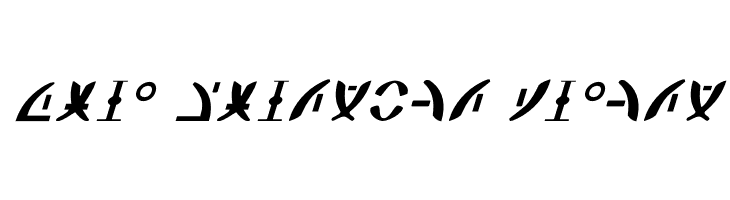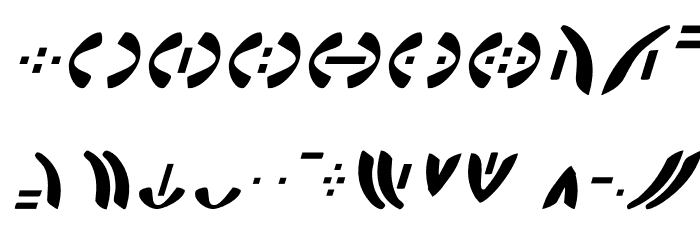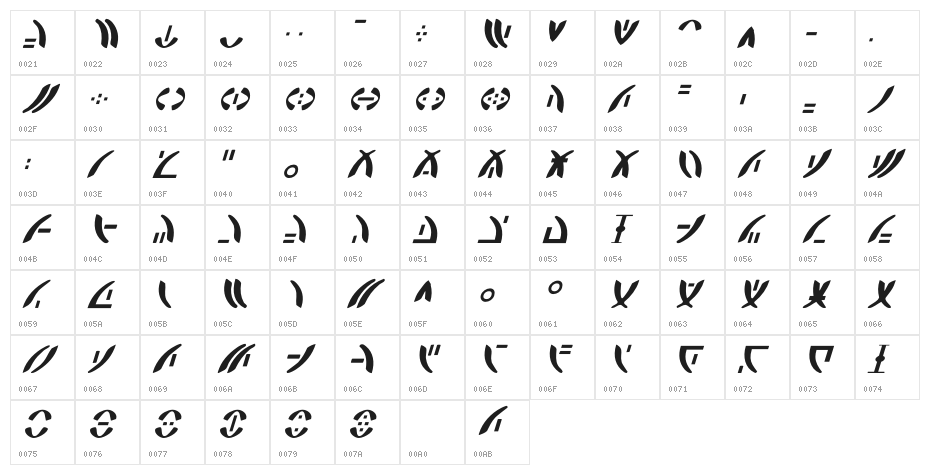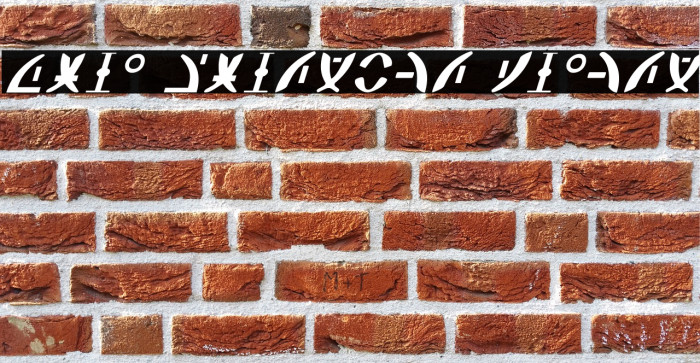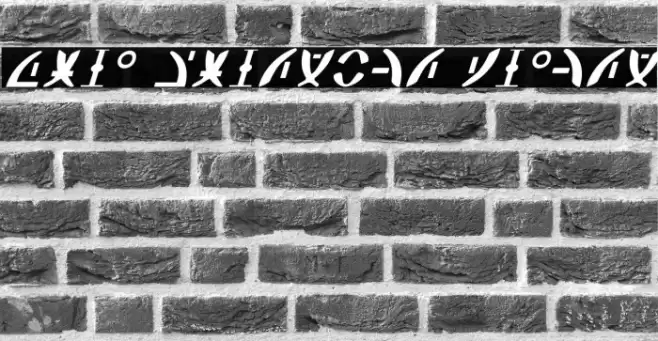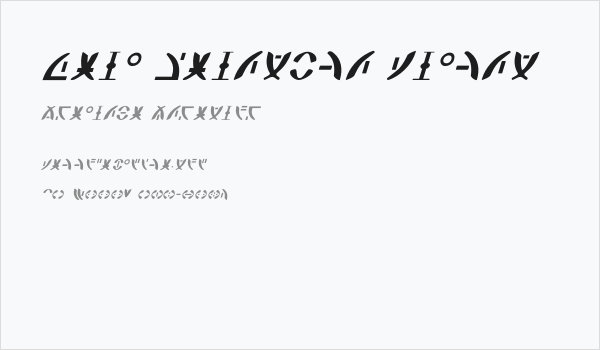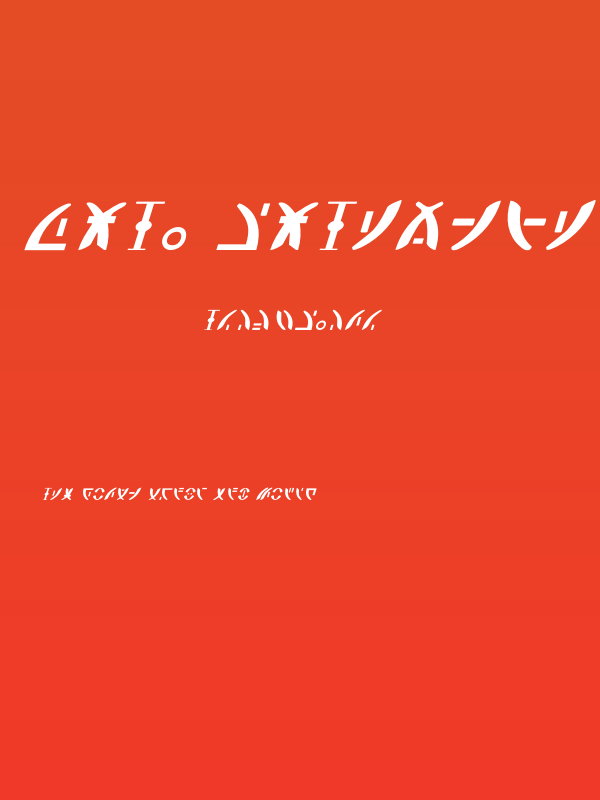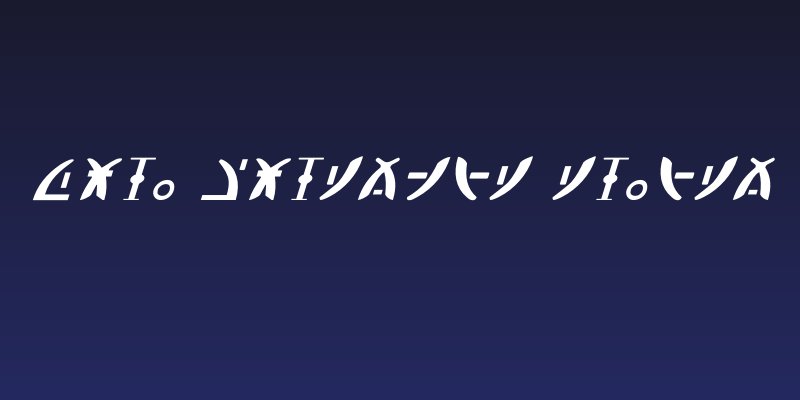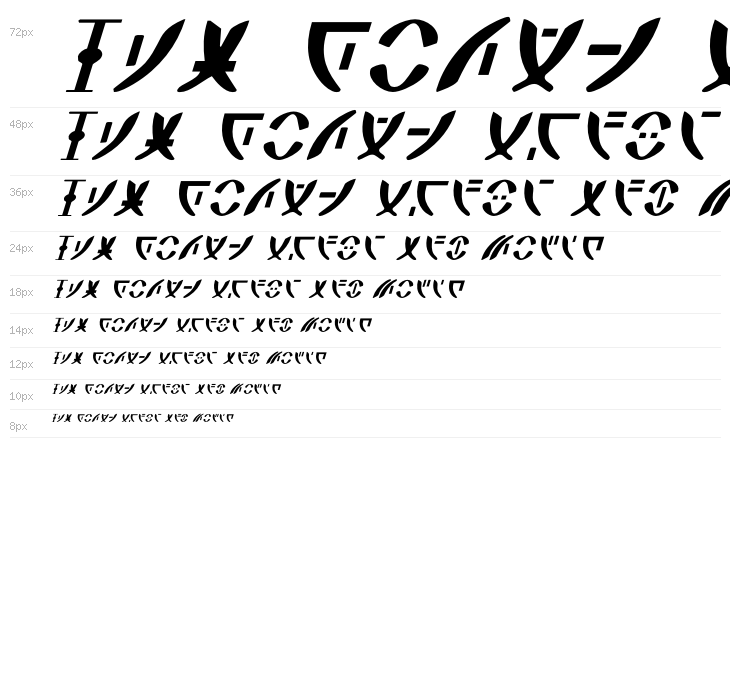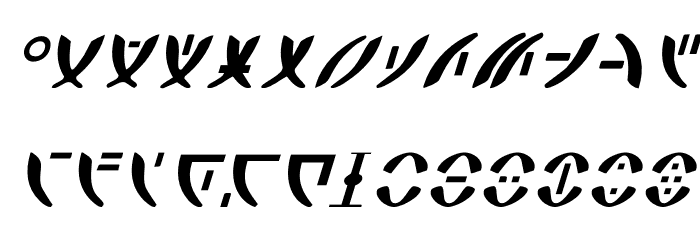
Zeta Reticuli Italic Font
Zeta Reticuli Italic Description
This font features a futuristic and abstract design, characterized by its unique and unconventional letterforms. The characters are highly stylized, with a strong emphasis on geometric shapes and sharp angles. The font exhibits a dynamic and energetic feel, with each letter appearing to be in motion. The strokes are bold and thick, contributing to a high contrast between the positive and negative spaces. This font's distinct style makes it stand out, offering a sense of mystery and modernity.
| Overall Style | Futuristic, Abstract |
| Proposed Projects | Ideal for sci-fi themed projects, video game titles, futuristic branding, and creative posters. |